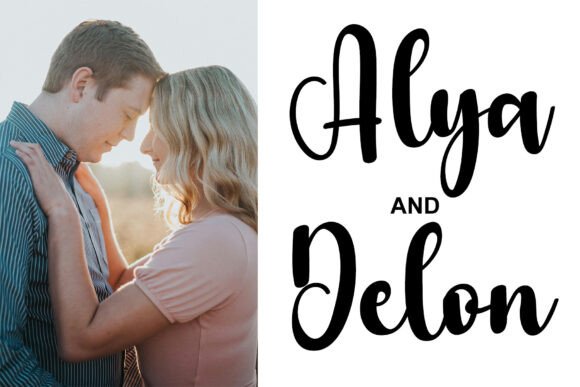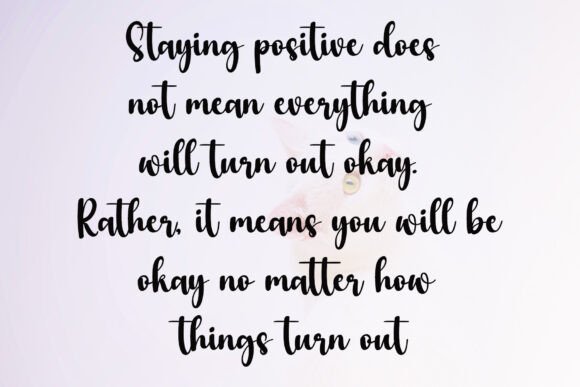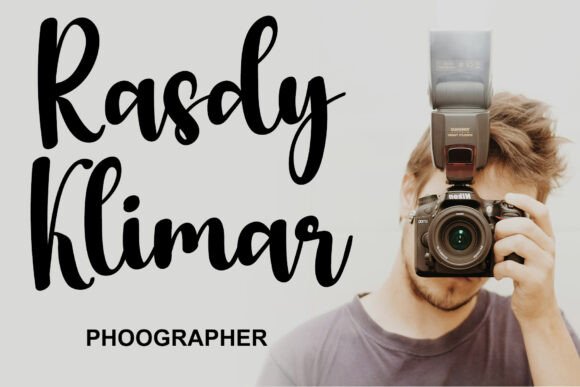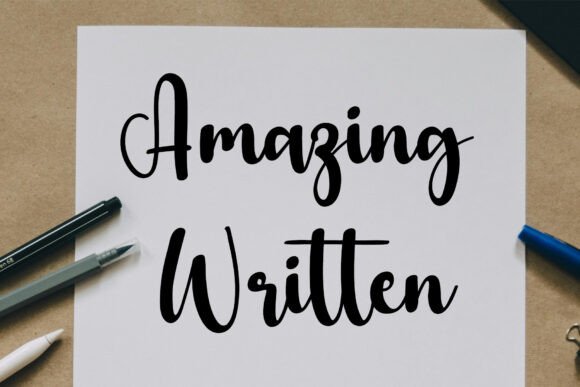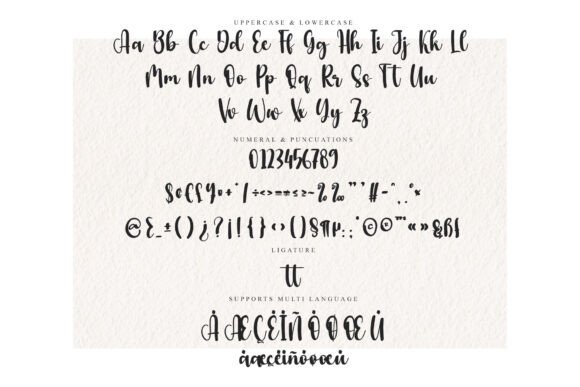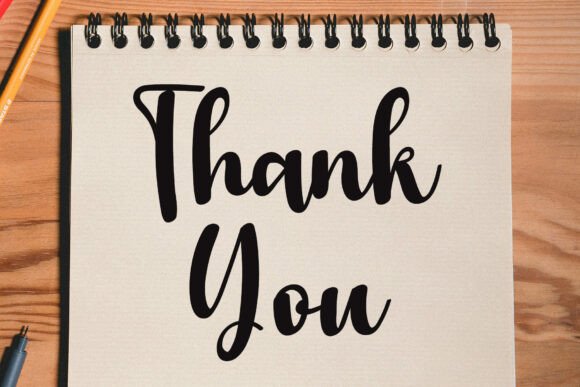
Introduction to Rustic Written Font
Have you ever stared at a blank canvas, pen in hand, trying to bring a creative project to life? The blank page can be intimidating, but the right tool can make all the difference. For designers, finding the perfect font can be the key to unlocking a fresh perspective and bringing their vision to life.
One such font that has captured the hearts of designers is the Rustic Written Font. This simple yet elegant handwritten font offers a high-quality design resource that is both versatile and practical. Its clean lines and unadorned letterforms make it perfect for a wide range of design projects, from branding to editorial design and web design. Whether you’re working on a creative project or need a reliable font for your next design, the Rustic Written Font is a valuable asset to have in your toolkit.
Key Features of Rustic Written Font
- Unique, hand-written style for a creative project or design resource, perfect for adding a personal touch.
- High-quality font with a transparent background, allowing for seamless integration into any design.
- Designed to work well in a variety of contexts, from invitations and posters to branding and advertising materials.
- Perfect for designers and artists looking for a distinctive, high-quality font to elevate their creative project.
Honest Review: Rustic Written Font
As a designer, I’m always on the lookout for unique and high-quality design resources to enhance my creative projects. The Rustic Written Font is one such find that has caught my attention. This free download has been a game-changer for my design workflow.
- ✨ High-quality design: The font is meticulously crafted, with a perfect balance of elegance and ruggedness, making it suitable for various design applications.
- ✨ Versatility: Rustic Written Font can be used for both digital and print-based projects, giving designers the flexibility to explore different mediums.
While the Rustic Written Font has its strengths, there are a few limitations to consider. The font may not be suitable for designs requiring a transparent background, as the design elements may not render well in such cases.
Overall, I’m impressed with the Rustic Written Font, and I’d definitely recommend it to designers looking for a unique and high-quality design resource. With its high-quality design and versatility, it’s an excellent addition to any design library.
Designing with Rustic Written Font
The Rustic Written Font is a high-quality, free download that can add a unique touch to your creative project. Its distressed texture and transparent background make it perfect for adding a vintage feel to your design.
Tips for Getting the Most Out of Rustic Written Font
To get the most out of Rustic Written Font, experiment with different font sizes, colors, and layer styles to achieve the desired look. You can also combine it with other design resources to create a unique and eye-catching design.
The Rustic Written Font is perfect for creating invitations, graphics, and other designs that require a vintage or distressed look. It’s also great for adding a unique touch to your website or social media graphics.
Dancing Script Font is a beautiful, cursive script font that’s perfect for designers who want to add a touch of whimsy to their projects. It’s ideal for use in wedding invitations, greeting cards, and other creative materials. Dancing Script Font offers a high-quality design with a free download option, making it an attractive alternative to Rustic Written Font for designers on a budget.